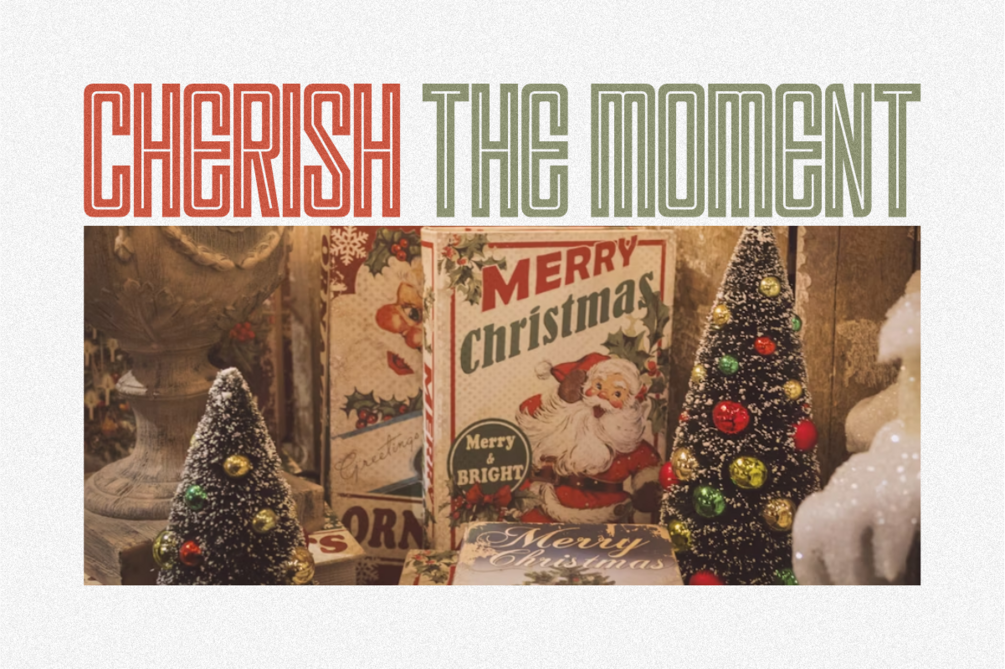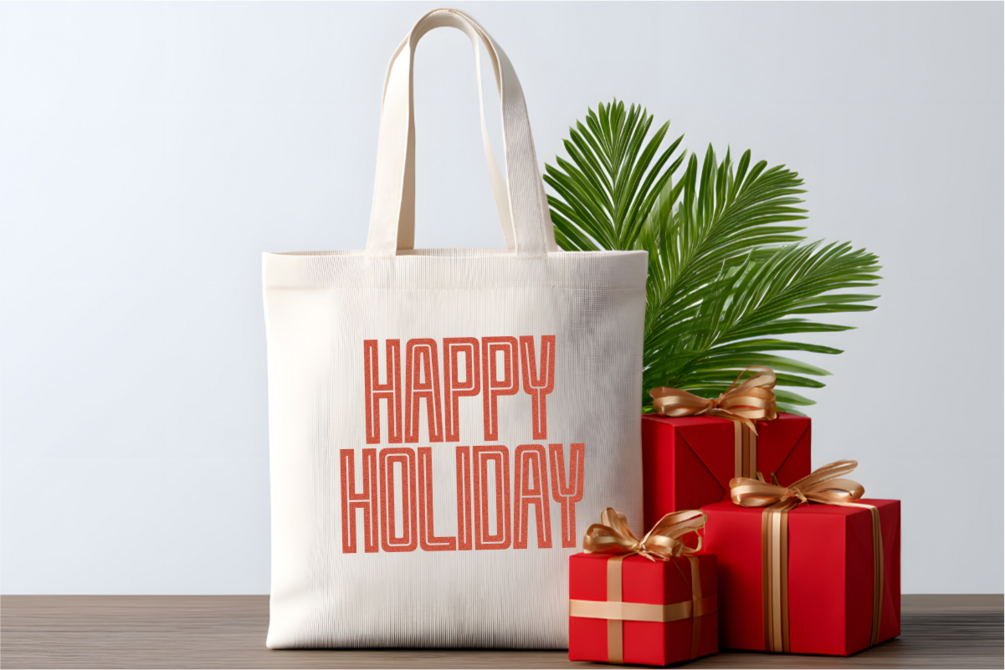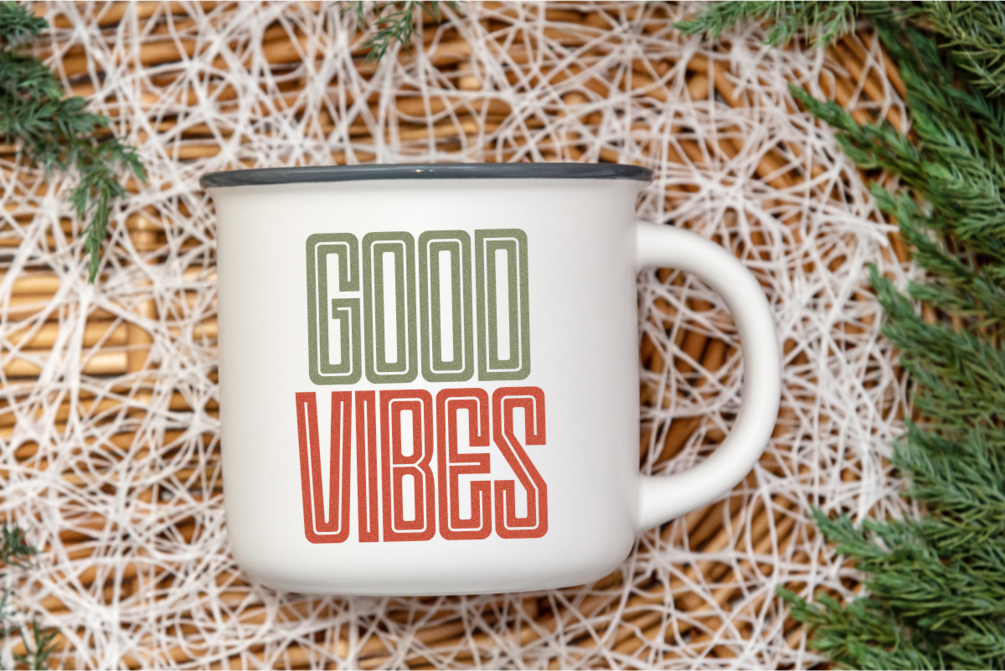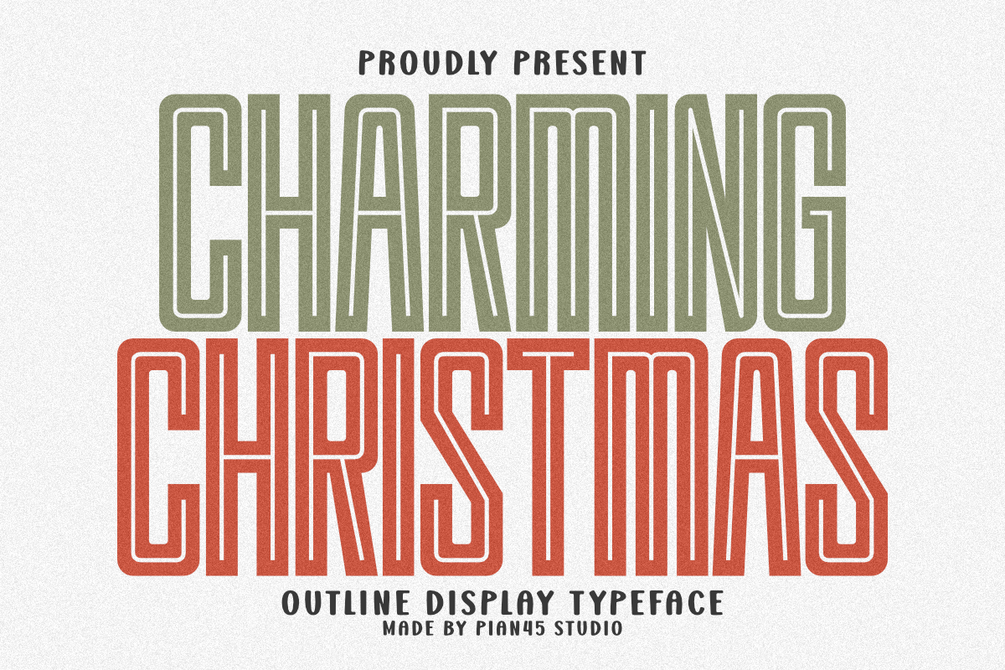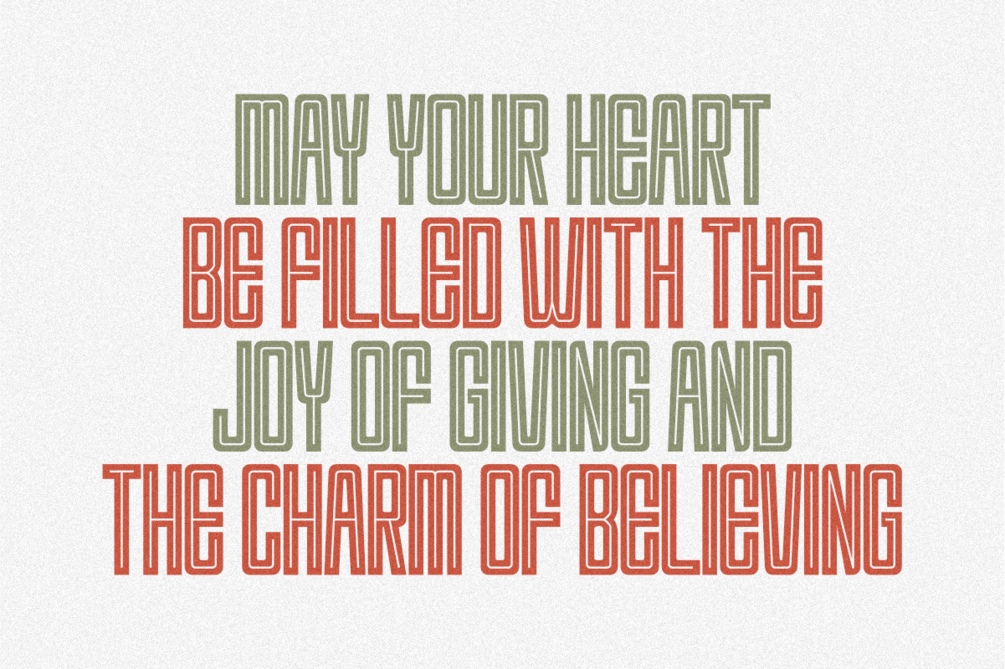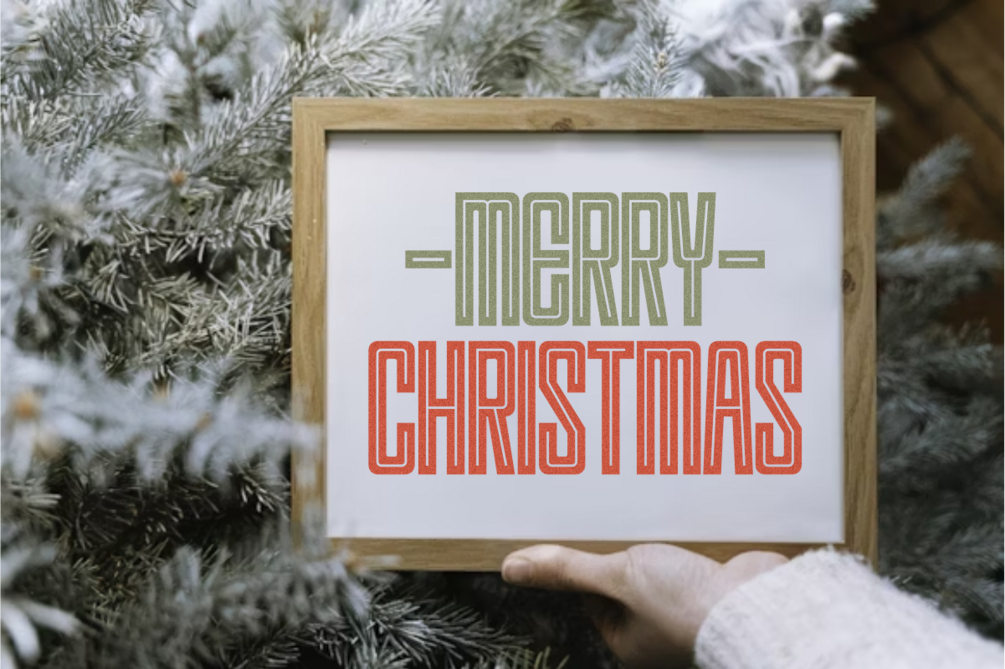
Charming Christmas - Outline Display Font
Charming Christmas is a striking Outline Display Typeface with an ultra-condensed structure, perfect for bold, layered designs and retro holiday aesthetics. Its strong, all-caps form and built-in outline style are ideal for Christmas apparel, winter event posters, seasonal branding, and impactful social media graphics. This unique typeface delivers a charming, nostalgic, and powerful visual identity, making it the perfect font for all your joyful December marketing and creative projects.